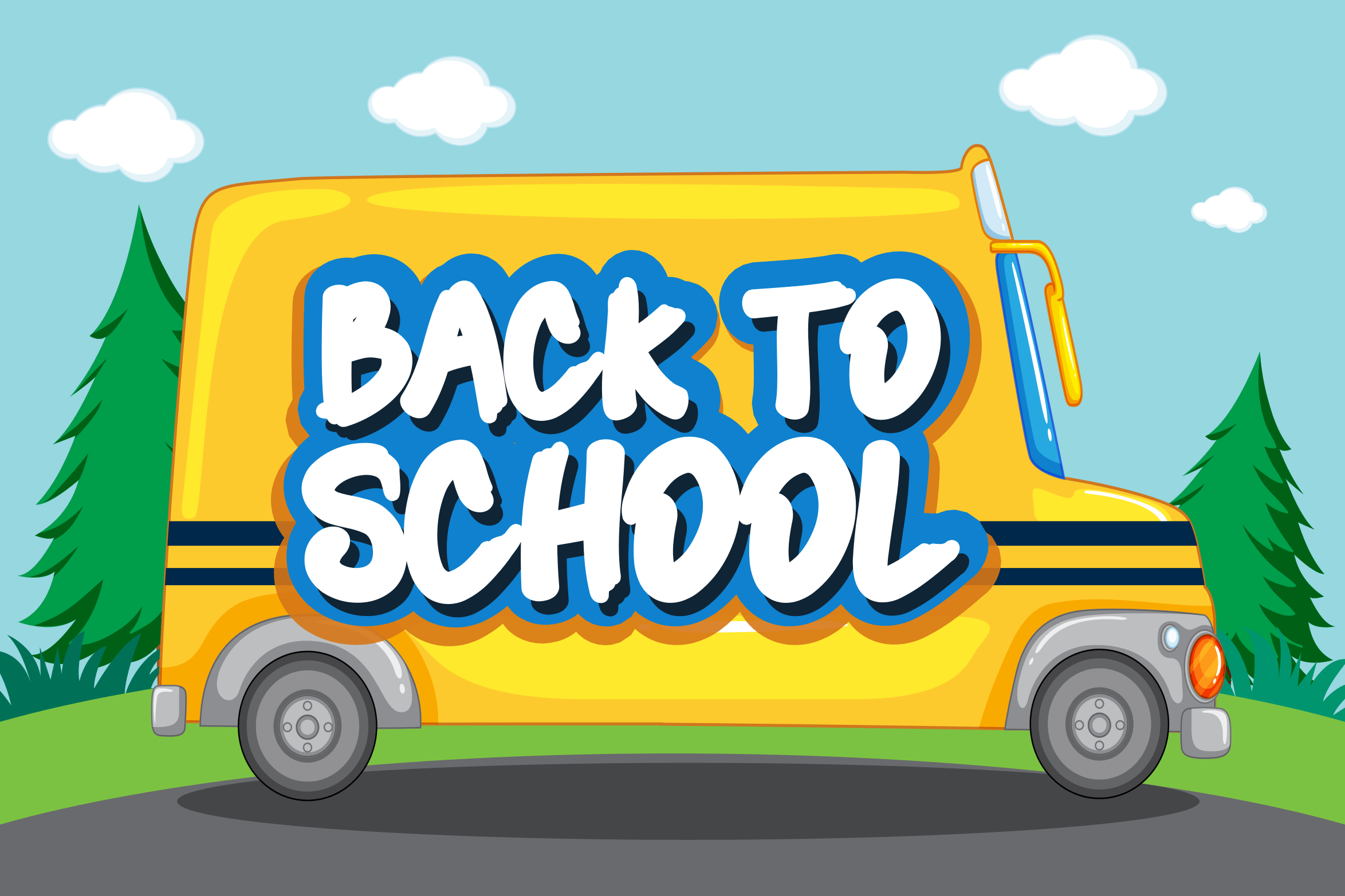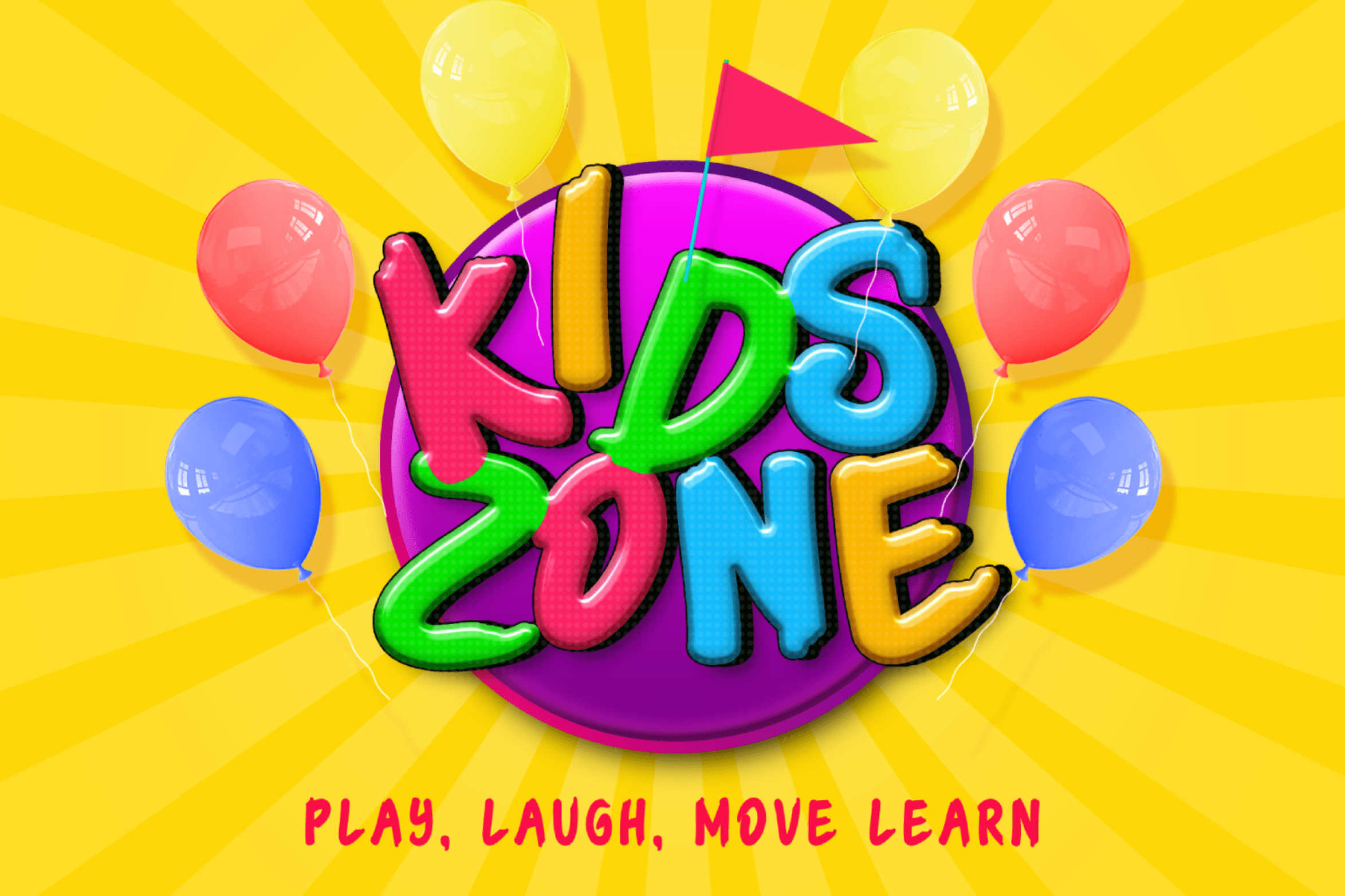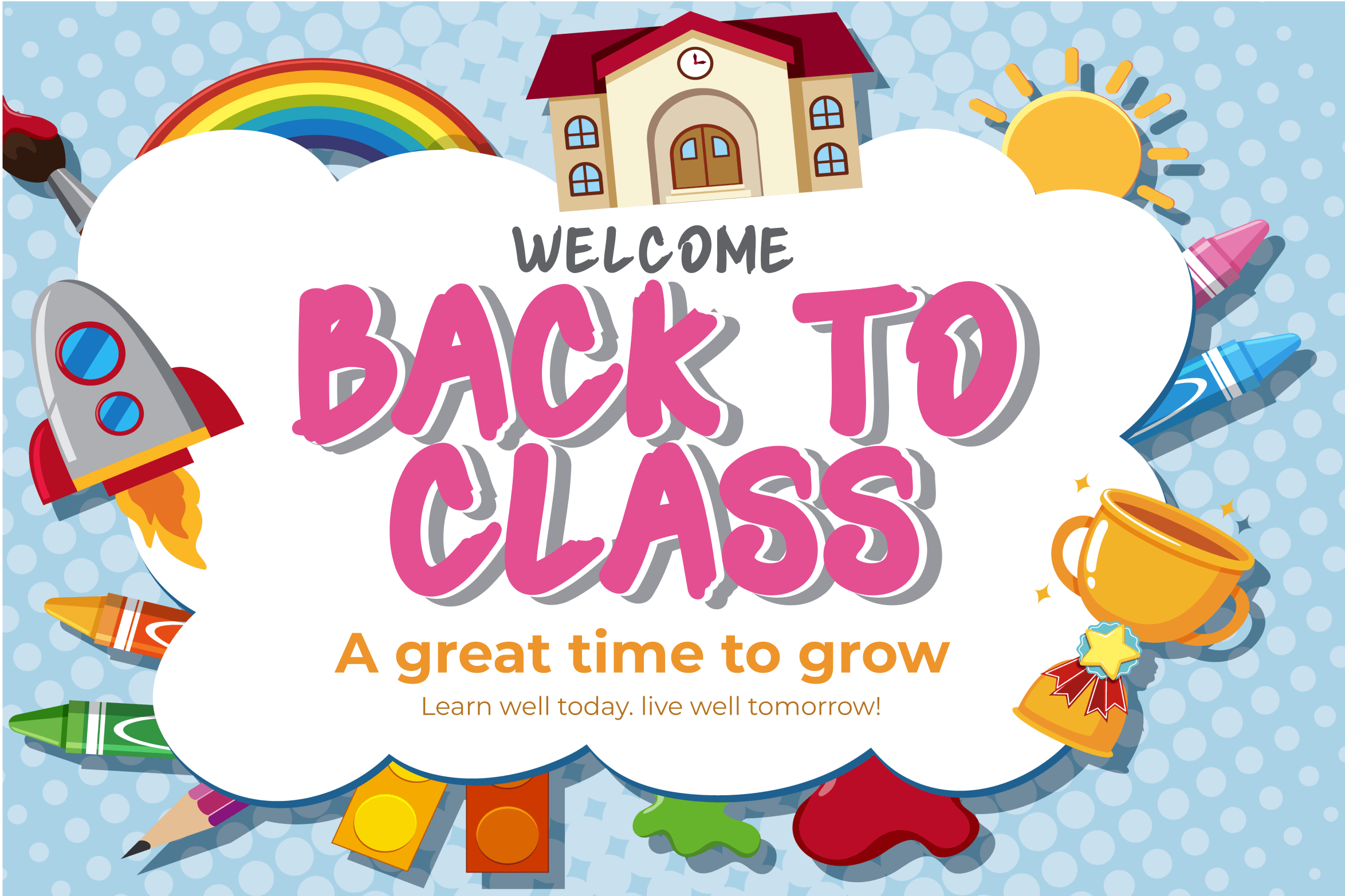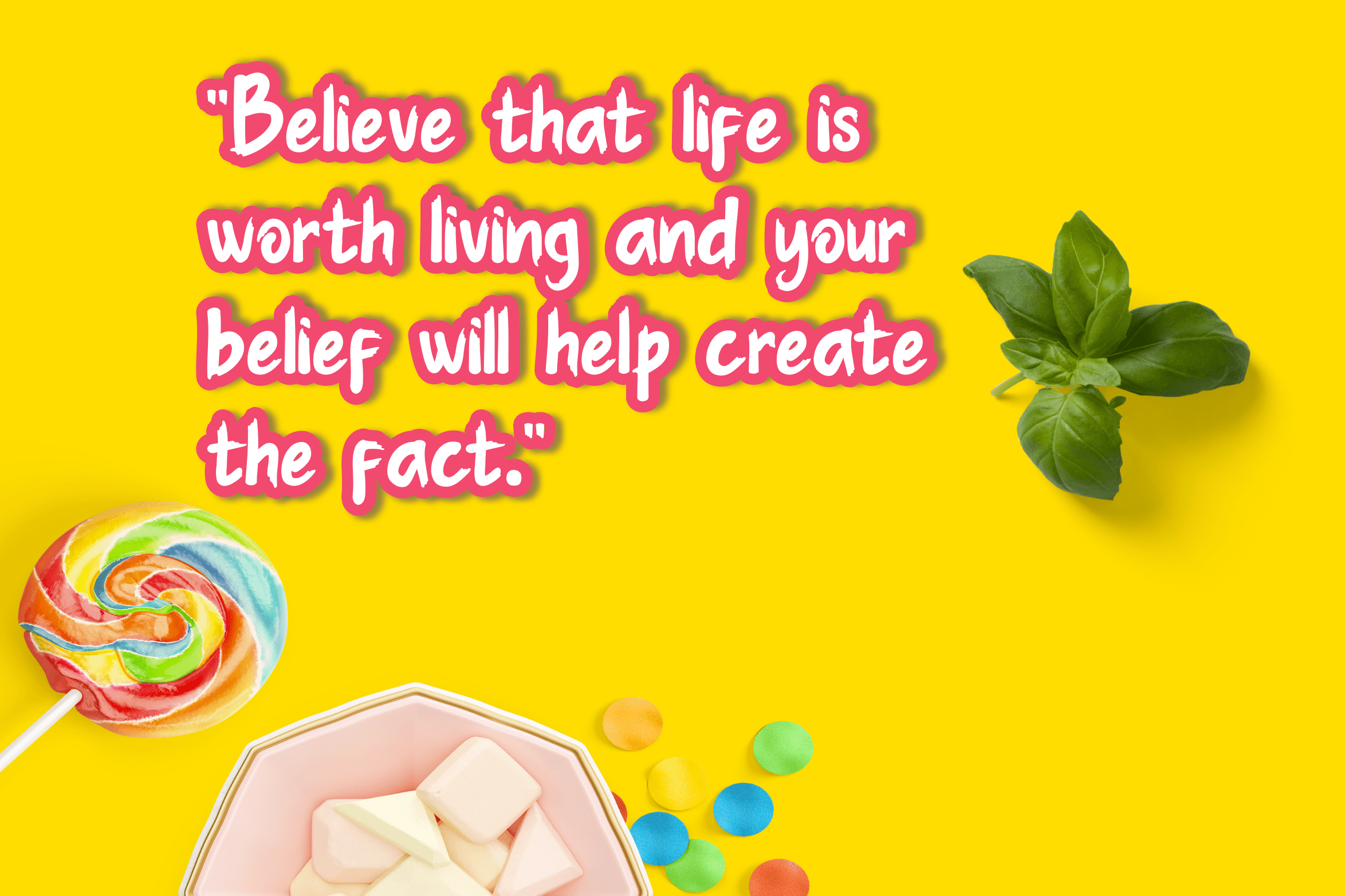
Cimonta Display Font
It’s a cute comic font, carefully crafted to become a true favourite. Its casual charm makes it seem incredibly simple, easy to read and, ultimately, incredibly versatile. Cimonta will look amazing in any context, whether it’s used in a busy background or as a stand-alone title!